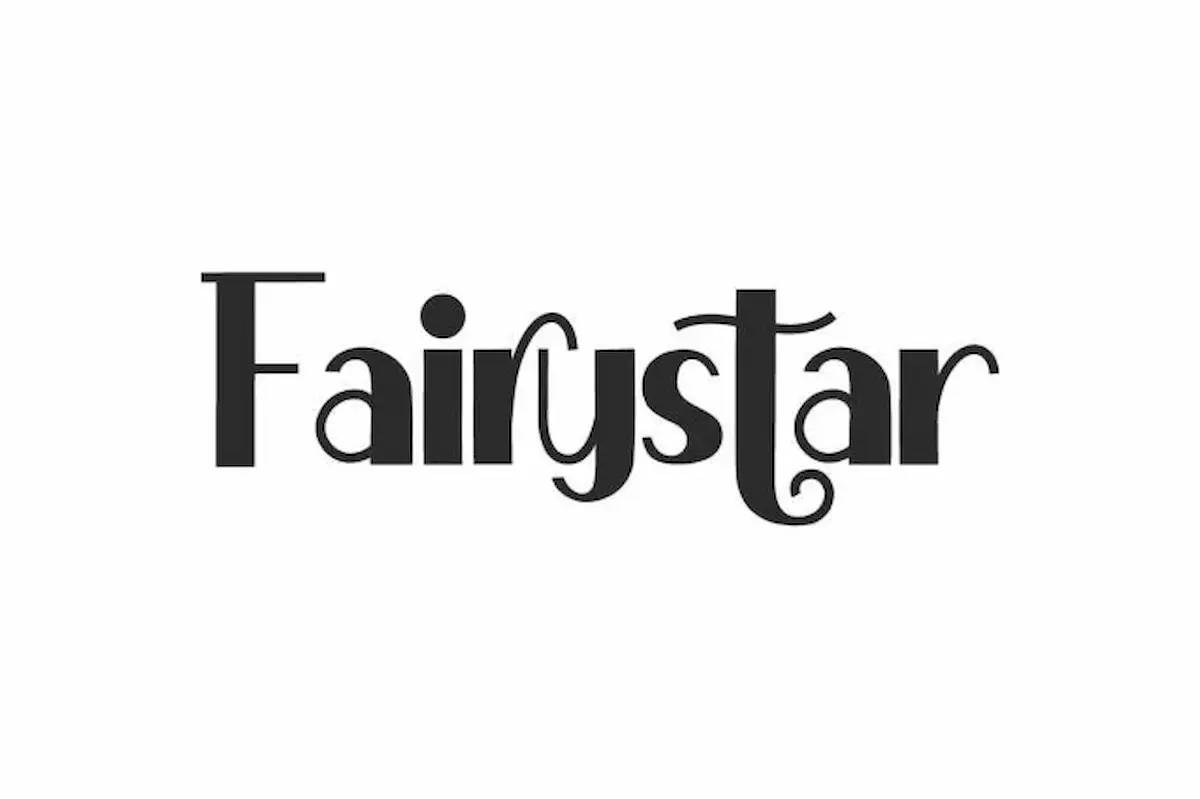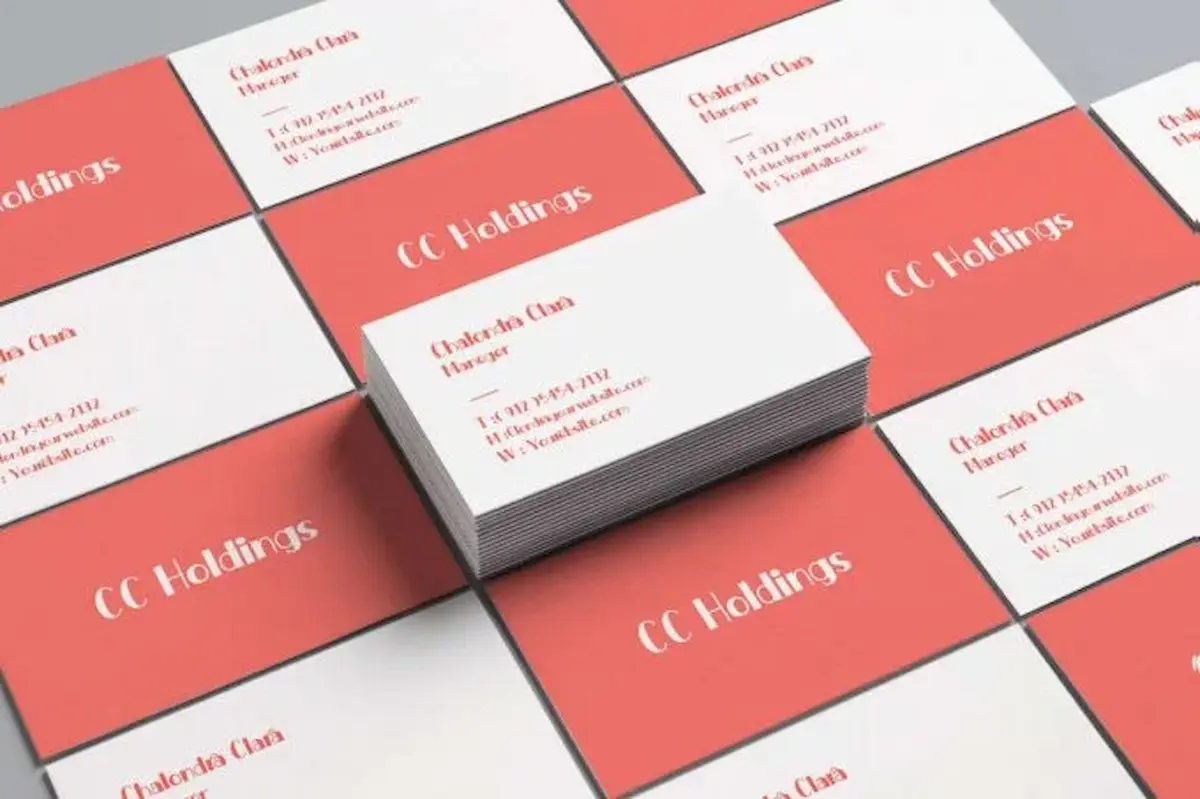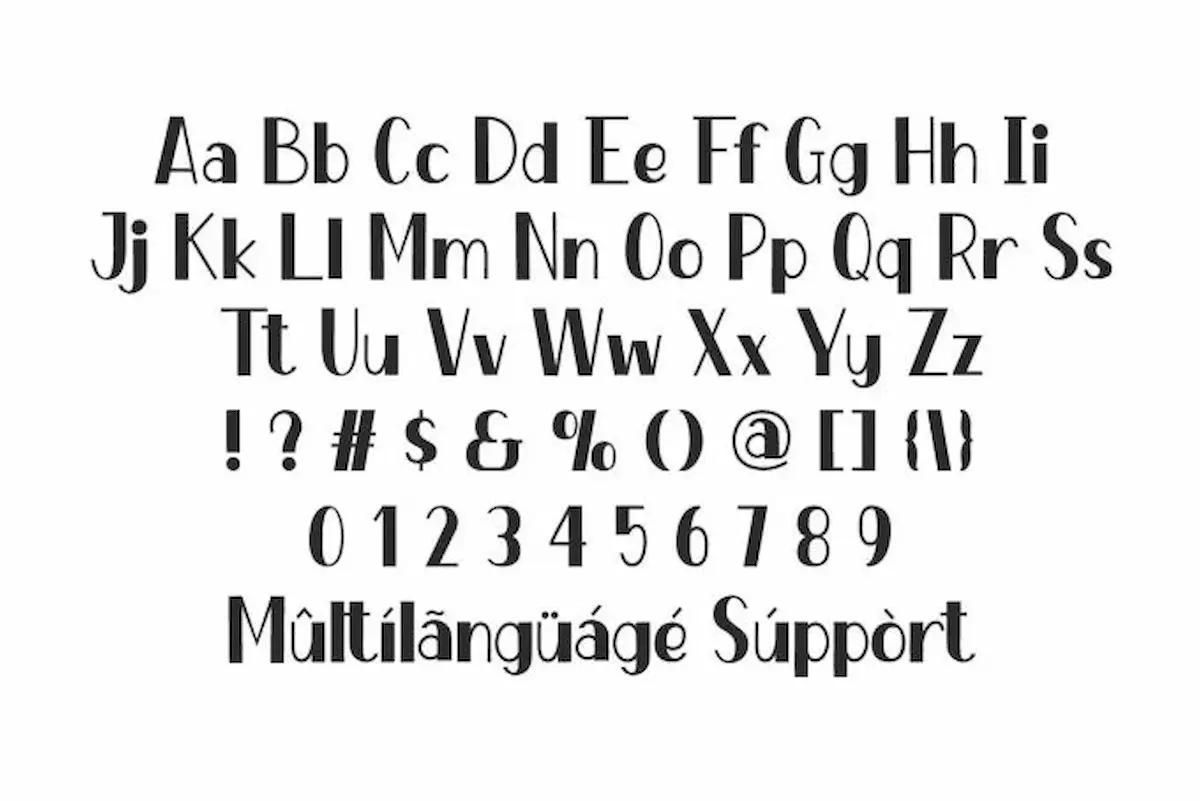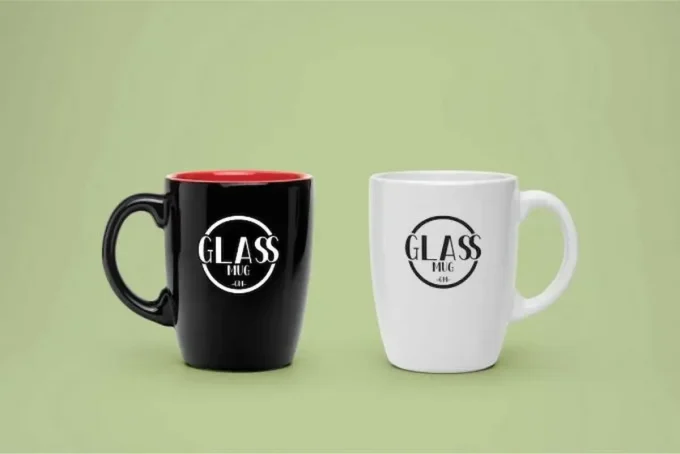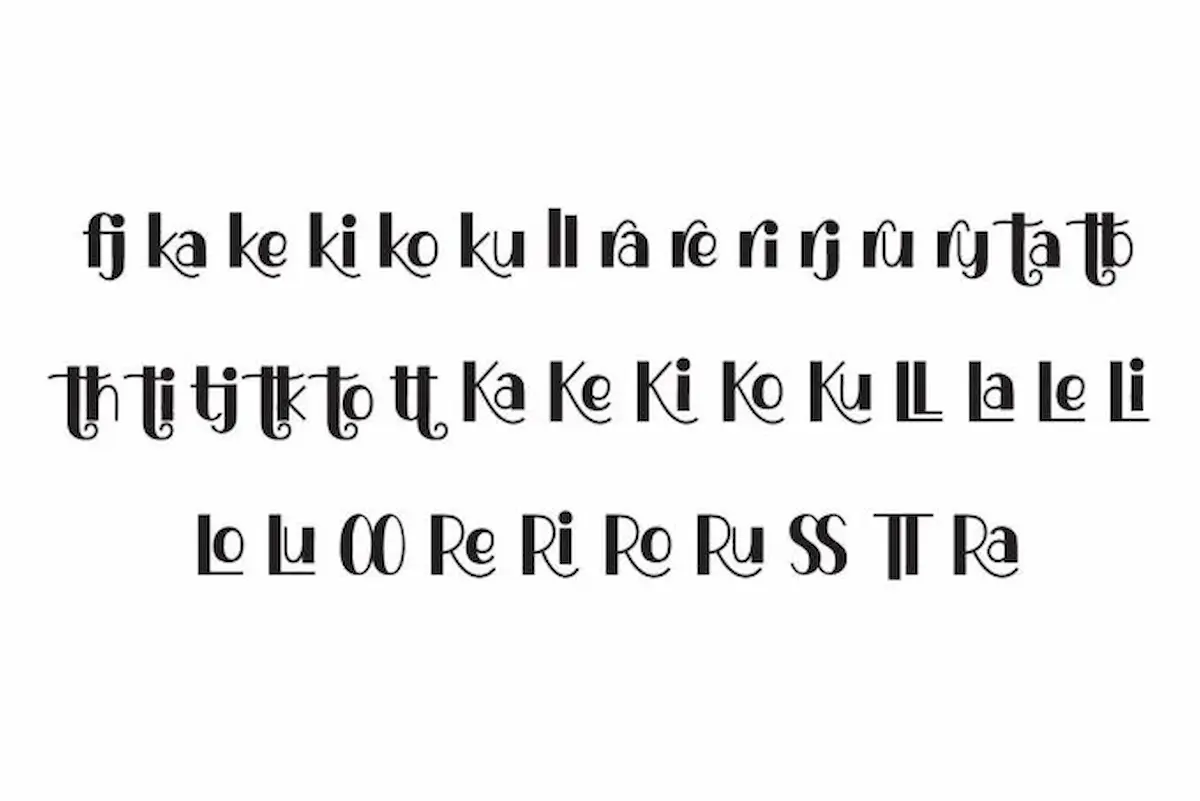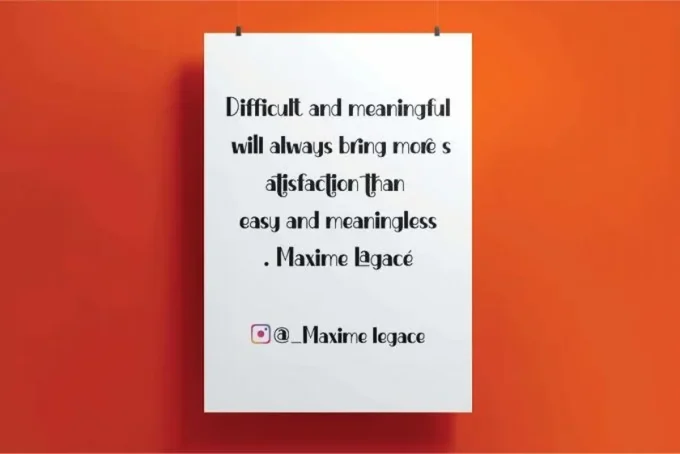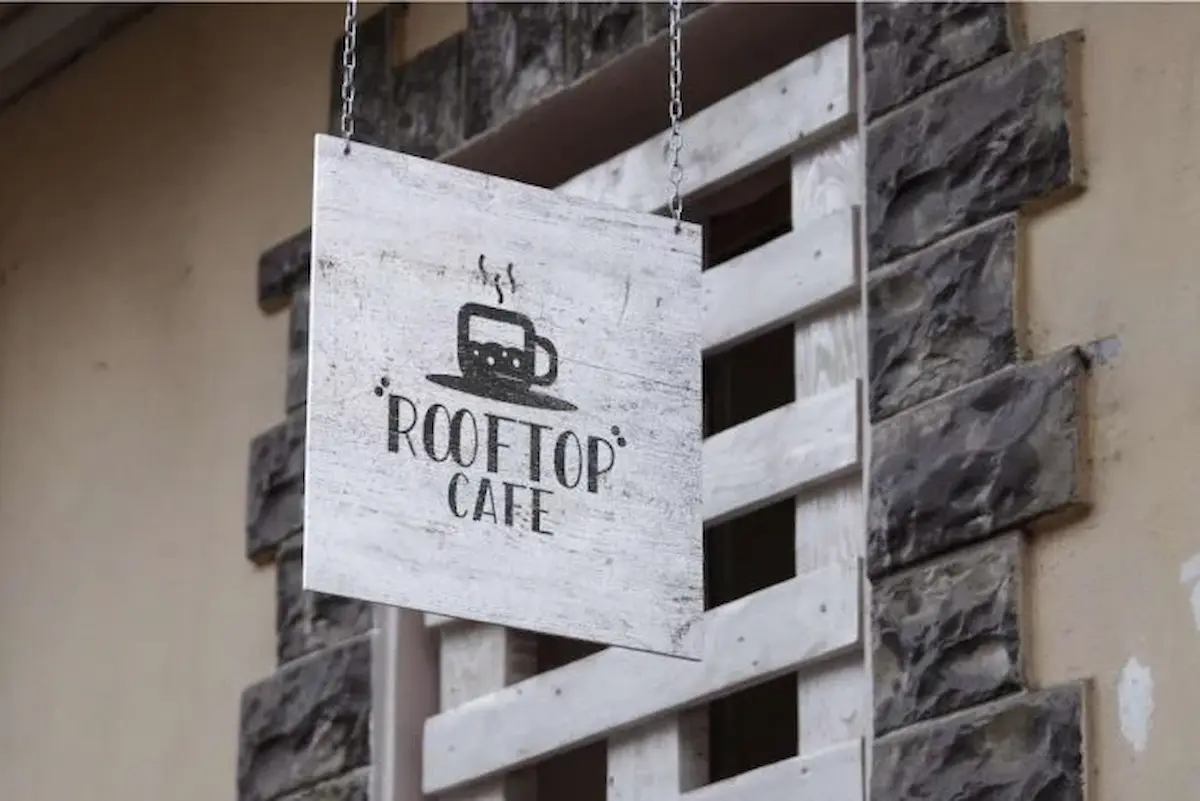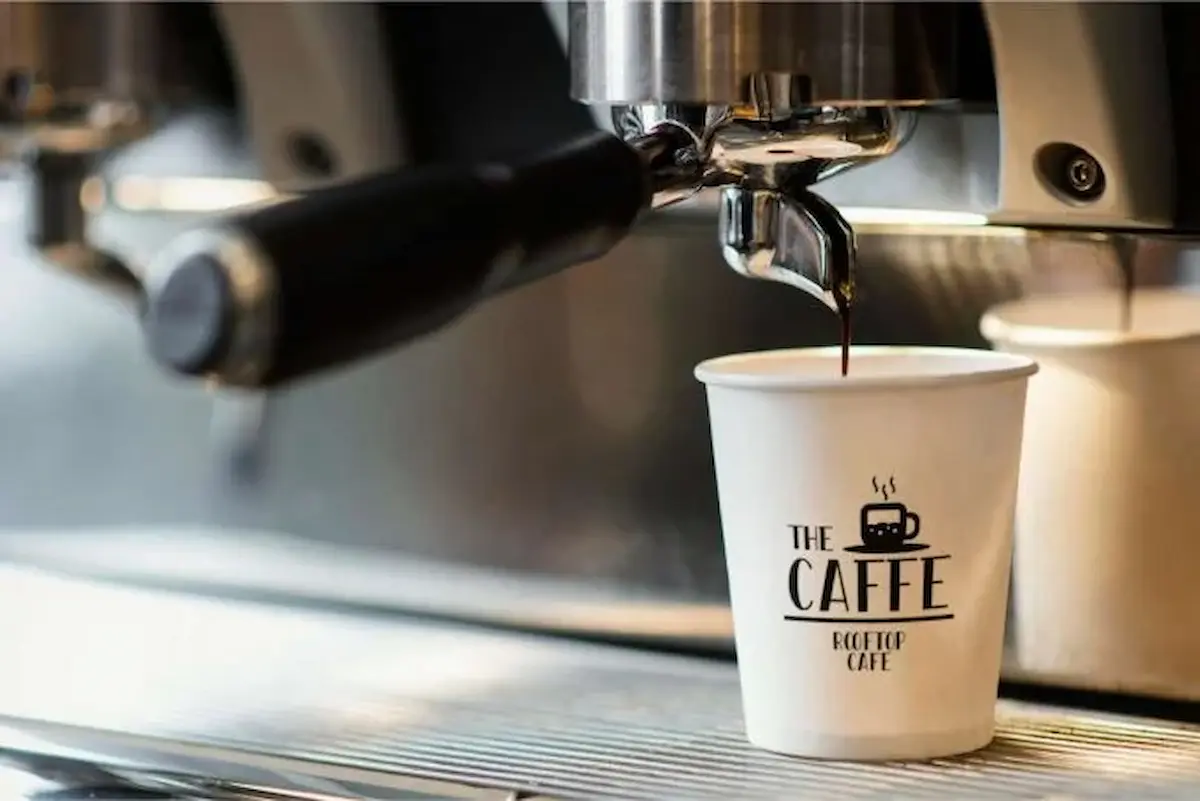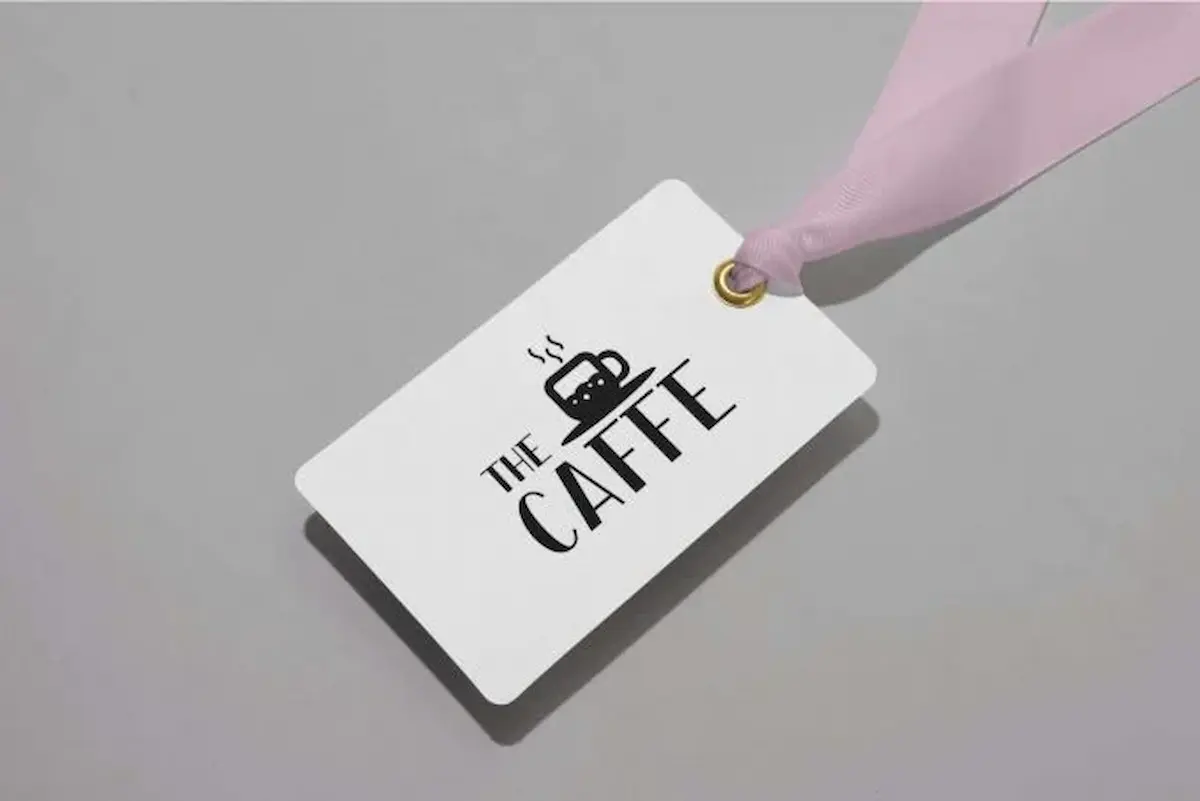
Fairystar Font
Fairystar Font is a cute and fun sans serif display with unique style. The font can be used for any project that needs casual yet fun looks. Get it now
Fairystar Font is a sans display font with unique and fun characters. We have also included fairy theme characters on the alternate letters. The font has a Modern look that can be used alone for most of the brands or mix it up creatively and see it stand out!
Fairystar Font would be great for, business card, product designs and many more!! made by NihStudio in 2021. The unique thing that you can find in this font is the shape of the different ligature and alternatives characters making it a cute and fun style. Many industries will be great with this font : clothing, fashion, comic, brands, homeware, etc